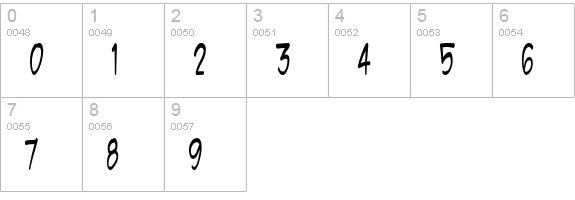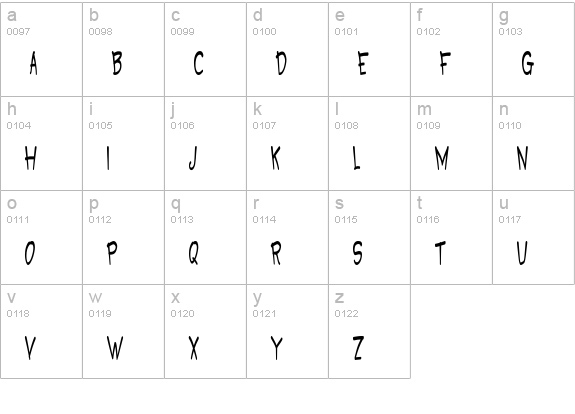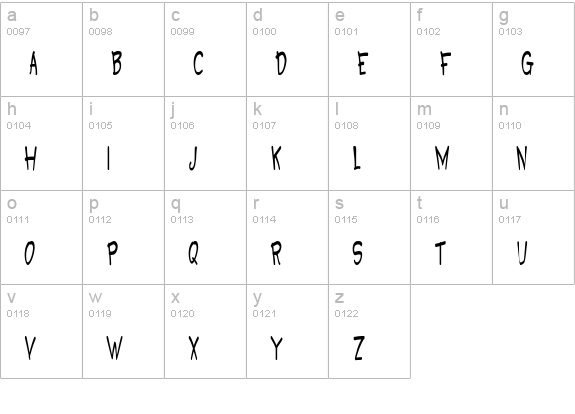
Grootesk Bold Font Details
Grootesk Bold is a strong, high-contrast variant in the Grootesk typeface family \xE2\x80\x94 well suited to headlines, attention-grabbing titles, and strong calls-to-action.
Introducing Grootesk Bold - a striking and powerful display font that commands attention with its bold and dynamic presence. This font exudes confidence and strength, making it perfect for headlines, titles, and any design that requires a bold statement. Grootesk Bold features strong, thick lines that give it a bold and impactful look, while still maintaining a sense of elegance and sophistication. What makes Grootesk Bold even more appealing is that it is available for free download exclusively at FontsMarket.com. This means that you can easily incorporate this stunning font into your projects without any additional cost. Whether you're designing a poster, logo, or website, Grootesk Bold is sure to make a lasting impression with its bold and commanding style. Download Grootesk Bold today and elevate your designs to new heights!